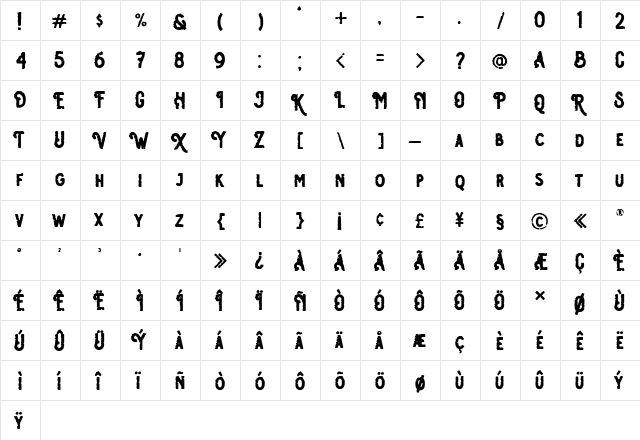
Osgiliath Rough
| Foundry | Typotopia |
| Designer | Typotopia |
Design Context for Osgiliath Typeface
Osgiliath embraces imperfection — its rough, textured character adds raw authenticity to designs that want to feel lived-in and unconventional.
A strong fit for alternative music projects, graffiti-adjacent design, and anything that deliberately resists polish.
Pro Tip: Use Osgiliath at larger sizes where the texture and irregularity of each letterform can be clearly seen — it loses its character at small sizes.